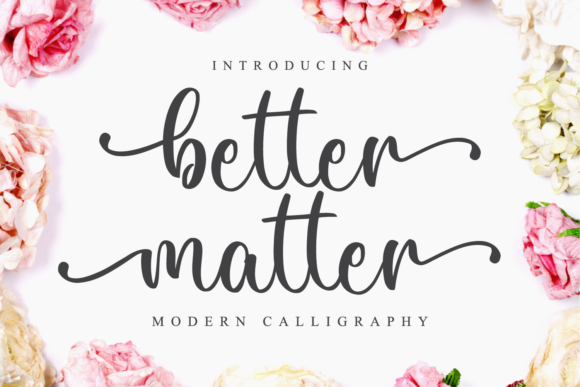
Behold, the Better Matter Font: An Exquisite Script Masterpiece for Your Creative Palette
In the realm of digital artistry, the choice of font can elevate your creations from ordinary to extraordinary. Better Matter Font, a stunning script font crafted by the renowned NissaStudio, is not just a font; it's an artistic gateway to a world of elegance, charm, and sophistication.
Picture this: Your website menu bar, adorned with the Better Matter Font, transforms into an enticing invitation, beckoning visitors to explore the depths of your digital domain. Its meticulously crafted curves and intricate details exude a timeless charm that captures attention and leaves a lasting impression.
Every letter in the Better Matter Font is a testament to the dedication and artistry of its creators. The smooth, flowing lines dance across the screen, creating a visual symphony that delights the eyes. Its PUA encoding ensures effortless access to a treasure trove of glyphs and swashes, empowering you to unleash your creativity and add a touch of exclusivity to your designs.
With Better Matter Font, you'll discover a versatile companion for a myriad of creative endeavors. Let its graceful strokes bring life to your logos, branding materials, social media posts, and invitations. Its elegant presence will elevate even the simplest of designs, transforming them into captivating masterpieces.
Step into the world of Better Matter Font and unlock a realm of endless possibilities. Let your imagination soar as you craft stunning visuals that resonate with your audience. Its timeless beauty and modern appeal will ensure that your creations stand out from the crowd, leaving an indelible mark on the digital landscape.